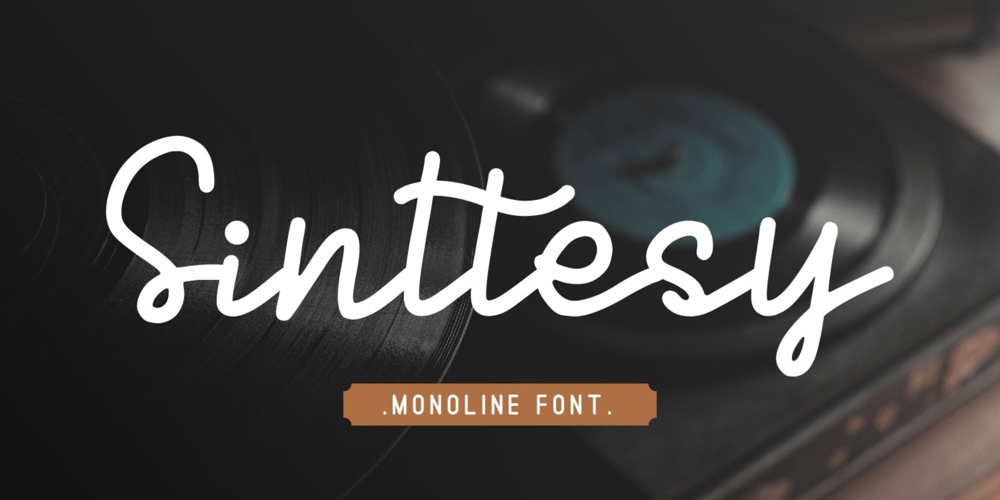
Sinttesy Font Family was designed by Irpan Maulana and published by Sabrcreative. Sinttesy contains 1 styles and family package options. Introducing Sinttesy, a stunning signature monoline font that brings sleekness and style to your designs. With its smooth and consistent lines, Sinttesy is perfect for adding a touch of elegance to logos, branding materials, social media posts, and more.The combination of uppercase and lowercase letters in Sinttesy allows for creative versatility, enabling you to craft unique typographic compositions. From sophisticated business cards to modern website headers, this font delivers a professional and polished look.In addition to its aesthetic appeal, Sinttesy is highly functional. It includes numbers and punctuations, ensuring seamless integration into your projects. The multilingual support further expands its usability, allowing you to communicate your message across different languages and cultures.Sinttesy is PUA encoded, making it effortless to access special characters and ligatures. This feature adds an extra layer of creativity and customization, allowing you to add decorative flourishes and embellishments to your designs.